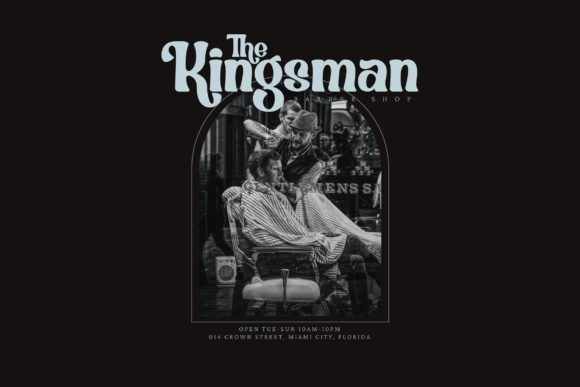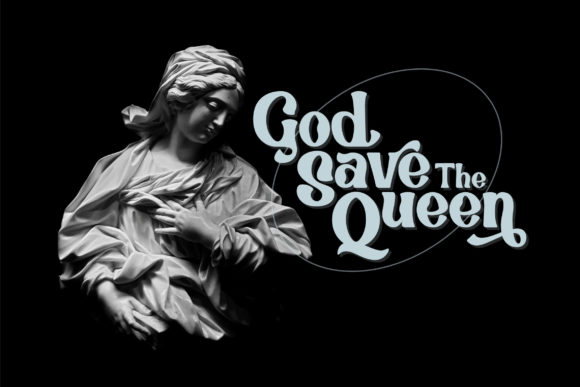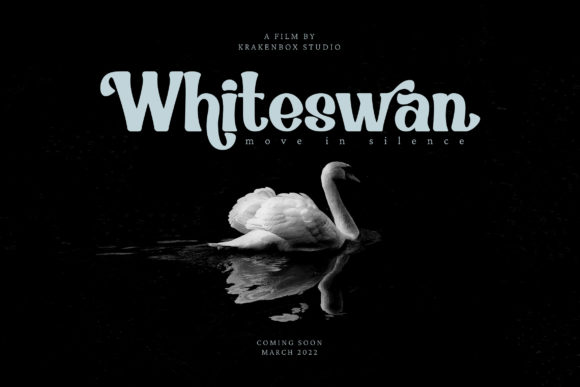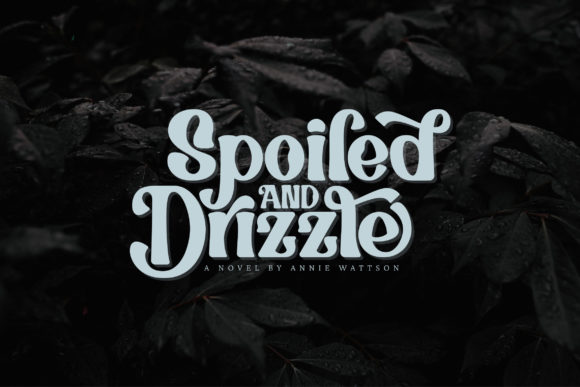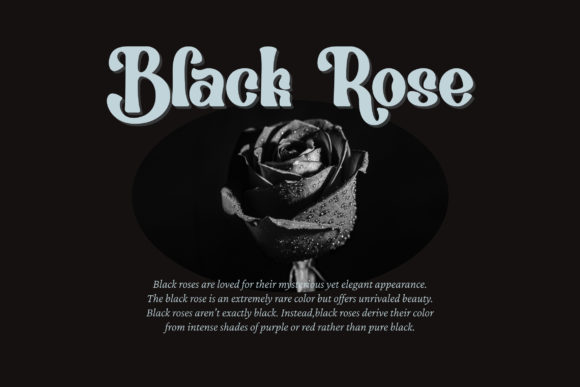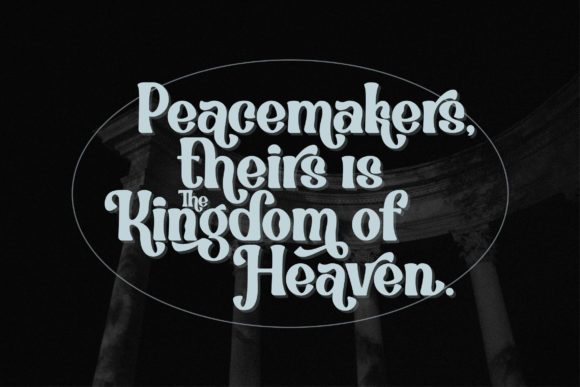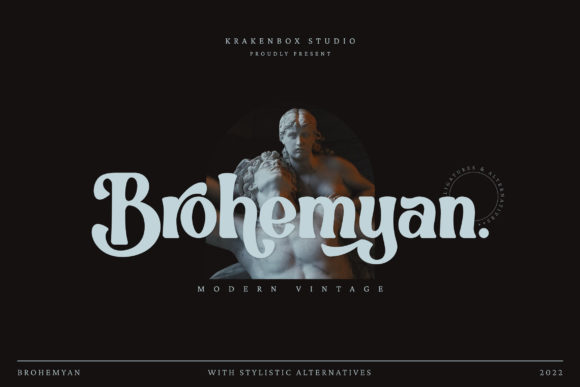
Unleash Your Creativity with Brohemyan Font: A Vintage-Styled Display Font
Are you a designer, crafty person, or simply someone who appreciates beautiful typography? Look no further than the stunning Brohemyan Font! This gorgeous, vintage-styled display font is perfect for a wide range of creative projects, from fashion and branding to album covers and social media graphics.
What Makes Brohemyan Font So Special?
Brohemyan Font is a unique and eye-catching typeface that exudes a sense of nostalgia and sophistication. Its vintage style is reminiscent of classic designs from the past, yet it still feels modern and fresh. This font is perfect for designers who want to add a touch of elegance and glamour to their work.
Use Cases for Brohemyan Font
Brohemyan Font is incredibly versatile and can be used for a wide range of projects, including:
- Fashion designs: Use Brohemyan Font to create stunning fashion graphics, such as logo designs, branding materials, and advertisements.
- Signature designs: Add a touch of elegance to your signature designs with this beautiful font.
- Album covers: Create eye-catching album covers that will stand out from the crowd with Brohemyan Font.
- Logos and branding: Use this font to create unique and memorable logos and branding materials for your clients or business.
- Magazines and publications: Add a touch of sophistication to your magazine or publication with Brohemyan Font.
- Social media graphics: Create stunning social media graphics that will grab the attention of your followers.
- Advertisements: Use Brohemyan Font to create eye-catching advertisements that will stand out from the competition.
PUA Encoding: What Does it Mean?
Brohemyan Font is PUA (Private Use Area) encoded, which means that you can access all of the glyphs and swashes with ease. PUA encoding allows designers to access a wide range of special characters and glyphs that are not available in standard fonts. This means that you can get creative with your designs and add unique touches that will make your work stand out.
Benefits of Using Brohemyan Font
There are many benefits to using Brohemyan Font in your designs, including:
- Unique and eye-catching designs: Brohemyan Font is a one-of-a-kind typeface that will add a touch of elegance and sophistication to your designs.
- High-quality typography: This font is designed to look great in a wide range of sizes and resolutions, making it perfect for both print and digital designs.
- Easy to use: Brohemyan Font is PUA encoded, making it easy to access all of the glyphs and swashes.
- Versatile: This font can be used for a wide range of projects, from fashion and branding to album covers and social media graphics.
Tips for Using Brohemyan Font
Here are a few tips for getting the most out of Brohemyan Font:
- Experiment with different sizes and colors: Brohemyan Font looks great in a wide range of sizes and colors, so don’t be afraid to experiment and find the perfect look for your design.
- Use it sparingly: While Brohemyan Font is a beautiful typeface, it can be overwhelming if used too much. Use it sparingly to add a touch of elegance and sophistication to your designs.
- Pair it with other fonts: Brohemyan Font pairs well with a wide range of other fonts, so don’t be afraid to experiment and find the perfect combination for your design.
In conclusion, Brohemyan Font is a stunning, vintage-styled display font that is perfect for designers, crafty people, and anyone who appreciates beautiful typography. With its unique and eye-catching design, PUA encoding, and versatility, this font is sure to become a favorite in your design arsenal. So why wait? Download Brohemyan Font today and start creating stunning designs that will stand out from the crowd!